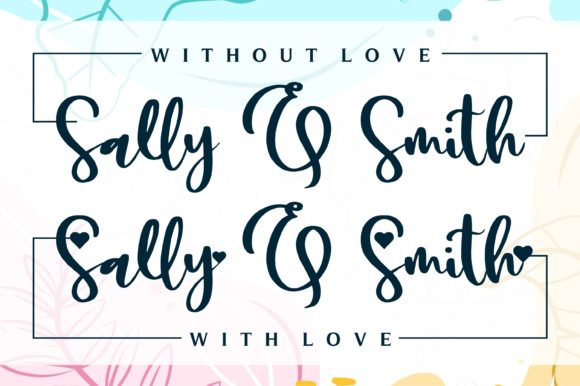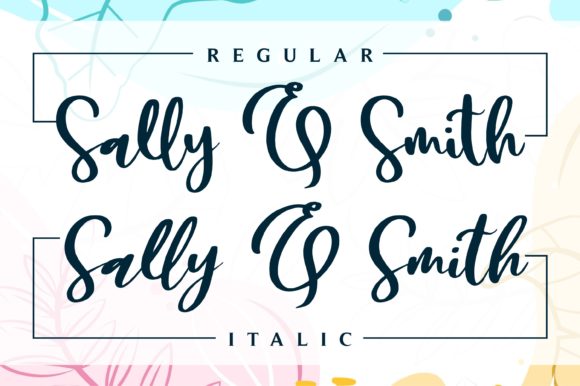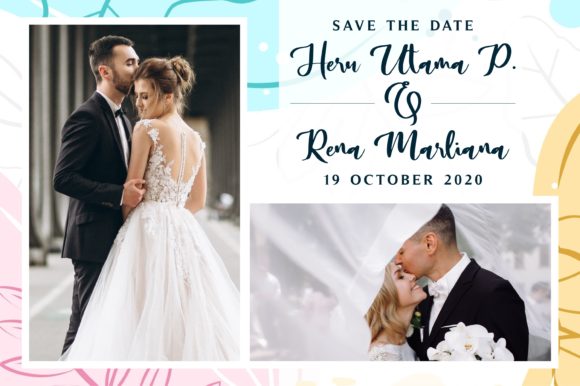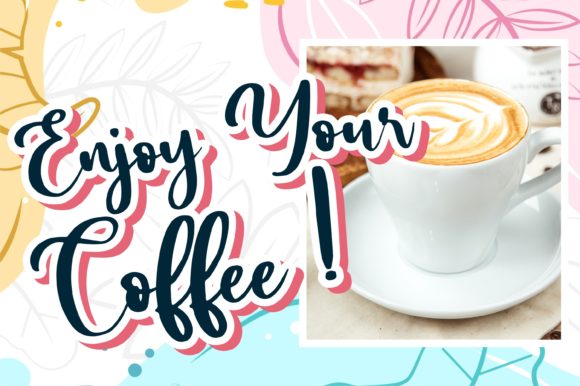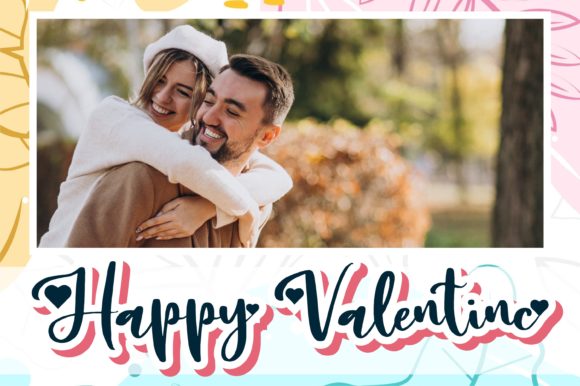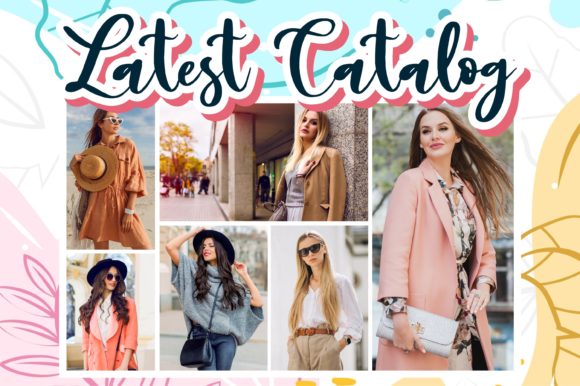
Introduction to Sally & Smith Font
Do you remember that moment when you stumbled upon the perfect design element, and your creative project suddenly came to life? For designers, finding the right font can be just as magical. And, we’re excited to introduce you to the enchanting Sally & Smith Font, a dreamy and romantic handwritten font that will transport your designs to a whimsical world.
With its unique, original look, this PUA encoded font is a treasure trove of creative possibilities. Whether you’re working on letterheads, titles, or stationery, Sally & Smith Font is the perfect design resource to elevate your projects. Its transparent background and high-quality design make it a valuable addition to any designer’s toolkit, allowing you to focus on crafting beautiful, unique designs.
And the best part? You can access all of the glyphs and swashes with ease, thanks to its PUA encoding. This means you can explore the full range of creative possibilities, from free downloads to intricate designs, without any hassle. So, get ready to fall in love with Sally & Smith Font and take your designs to the next level!
Key Features of Sally & Smith Font
- High-quality design resource with a unique, hand-drawn style suitable for creative projects.
- Features a transparent background, making it easy to customize and use in different design applications.
- Comes in 6 different weights, from light to bold, allowing for versatility in typography.
- Designed with a high resolution of 300 DPI, ensuring crisp and clear text in both digital and print projects.
- Perfect for use in logos, branding, and other design elements where a creative and artistic touch is needed.
Honest Review: Sally & Smith Font
As a designer, I’m always on the lookout for high-quality design resources that can elevate my creative projects. Recently, I stumbled upon the Sally & Smith Font, and I’m excited to share my thoughts on it.
The Sally & Smith Font is a beautiful, free download that’s perfect for anyone looking to add a touch of elegance to their design. ✨ With its transparent background and sleek design, it’s a great addition to any project. I particularly love how versatile it is – it works well for both digital and print designs.
Here are some of the features that I love about the Sally & Smith Font:
- High-quality design that’s perfect for professional projects
- Transparent background makes it easy to use in complex designs
- Only available in a limited range of font styles
Overall, I’m really impressed with the Sally & Smith Font. It’s a great design resource that’s perfect for creative projects, and its free download makes it an excellent choice for designers on a budget. ⚠️ Just be aware of the limitations mentioned above.
For the best results, use the Sally & Smith Font in conjunction with other design resources to create a cohesive and visually appealing design. Experiment with different font sizes and styles to add depth and interest to your project.
The Sally & Smith Font is a versatile design resource that can be used in a variety of creative projects, including blog posts, social media graphics, and marketing materials. Its clean and modern design makes it a great choice for any project that requires a professional and polished look.